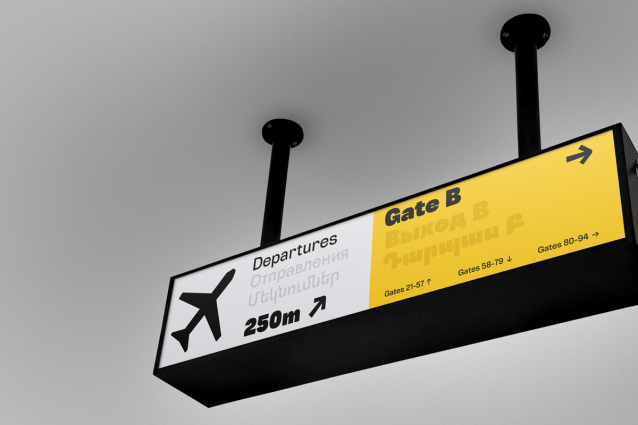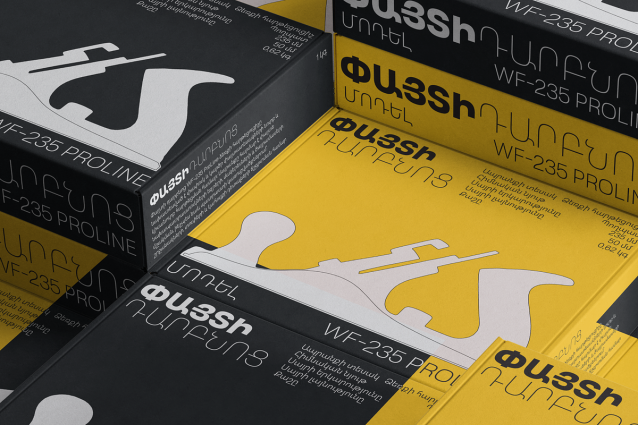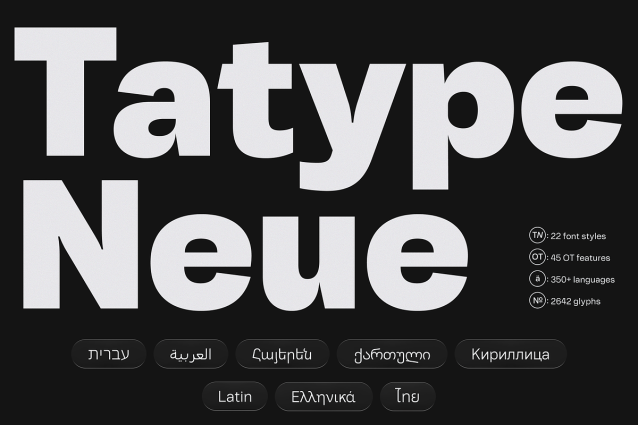
Tatype Neue Font Family
Tatype Neue Font Family is the definitive evolution of the original Tatype family. Re-engineered for the complex demands of modern global branding, it is a versatile workhorse that combines geometric clarity with a neutral, highly legible structure.
Designed to bridge cultural and linguistic boundaries, Tatype Neue ensures your visual identity remains consistent across the globe. Whether used in multi-lingual user interfaces, corporate wayfinding, or editorial design, its clean lines and meticulous spacing deliver outstanding performance on any screen or printed surface.